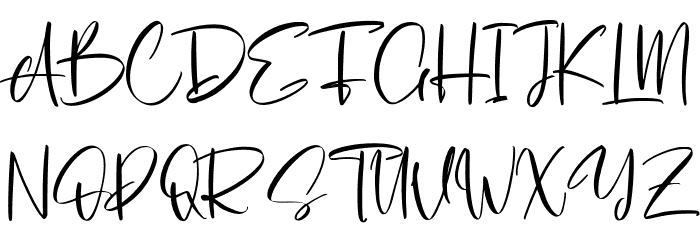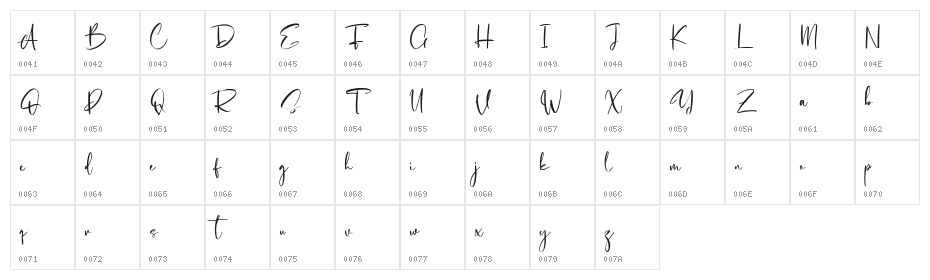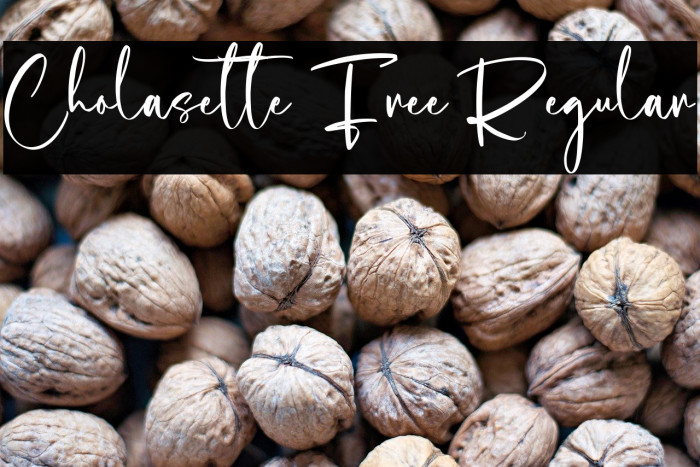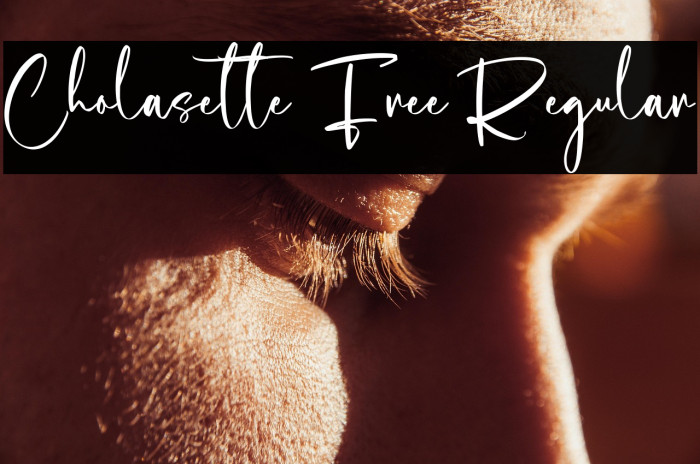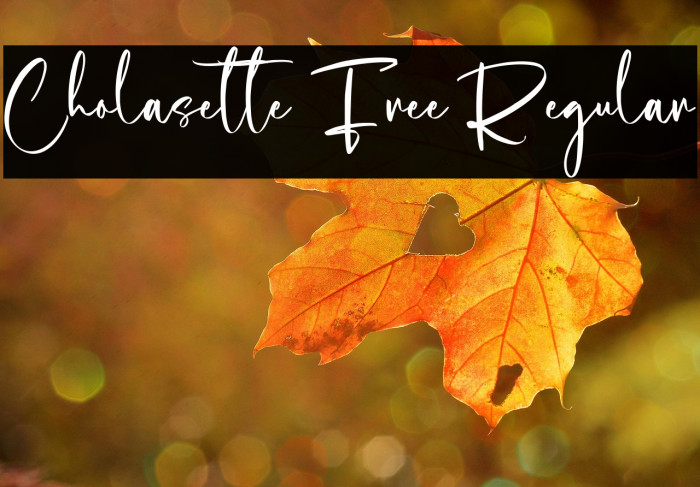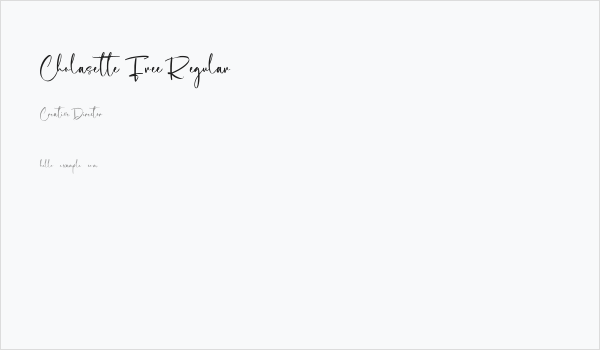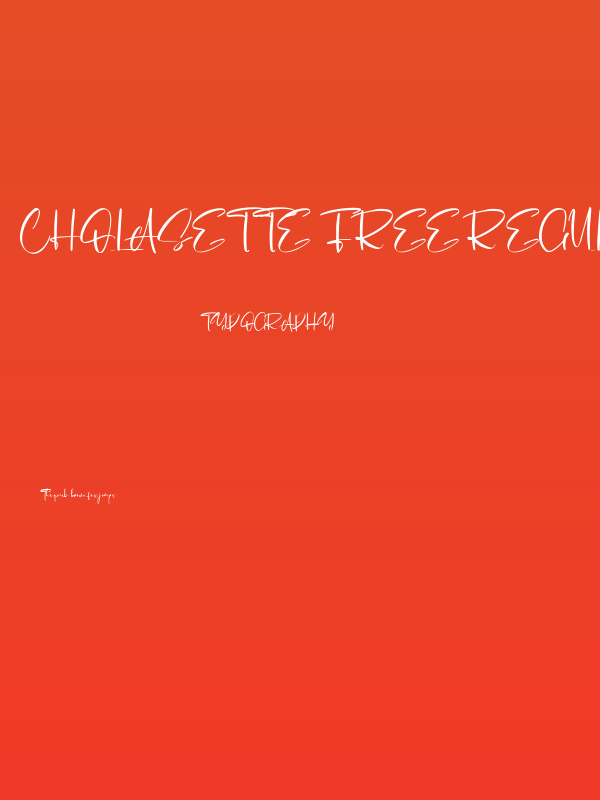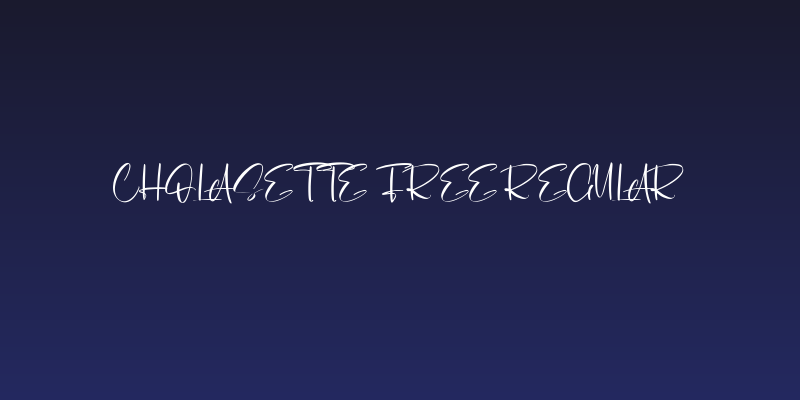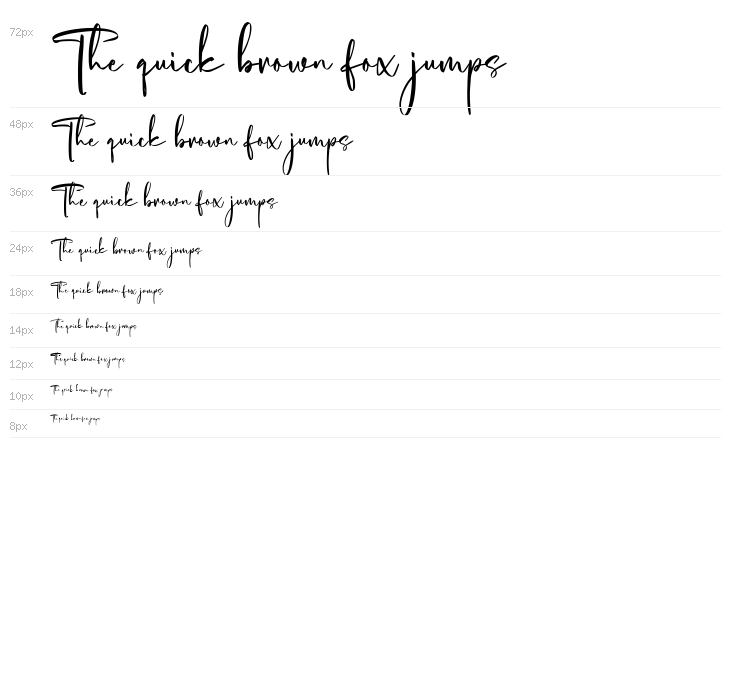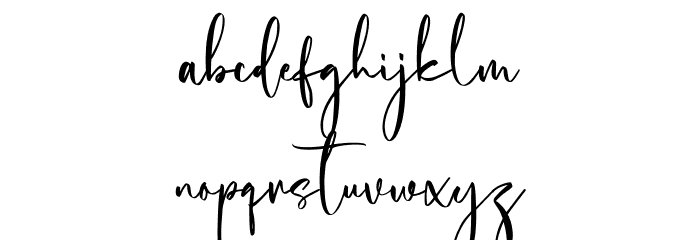
Cholasette Free Regular Font
Cholasette Free Regular Description
This font features a dynamic and expressive handwritten style, characterized by its fluid and flowing letterforms. The uppercase letters exhibit a bold and confident appearance, with varying stroke widths that add a sense of movement and energy. The lowercase letters maintain a consistent style, complementing the uppercase with their elegant curves and loops. The overall design is both artistic and modern, making it suitable for creative projects. The font's unique character is further enhanced by its slightly irregular baseline, which adds to its charm and authenticity.
| Proposed Projects | Ideal for branding, invitations, greeting cards, and social media graphics. |